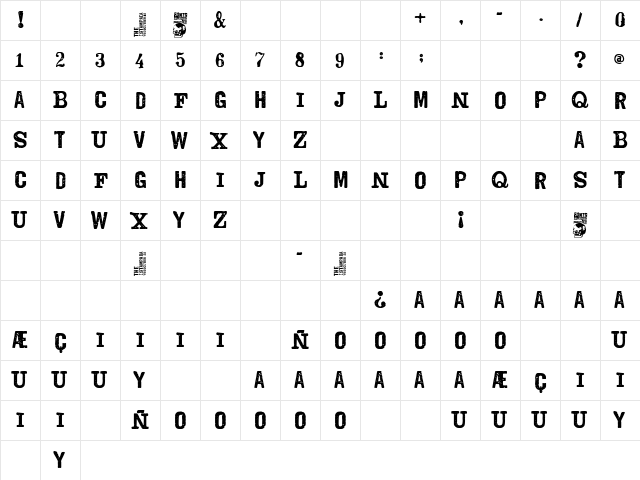
The Estampada Regular
| Designer | Woodcutter Manero |
Design Context for The Estampada Typeface
The Estampada has the rough pragmatism of spray-painted stencil signage, adding a raw, street-level authenticity to designs.
A strong choice for packaging that needs edge, warehouse aesthetics, and rough-and-ready visual identities.